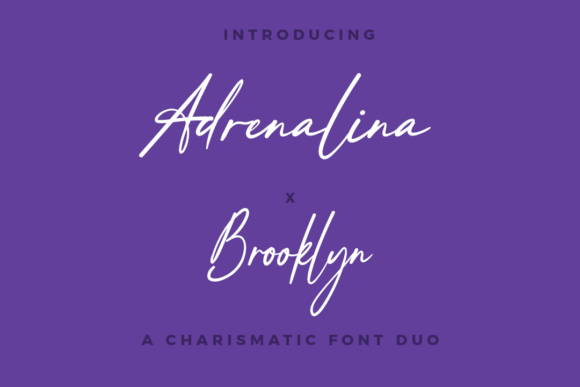
Discover the Elegance and Creativity of Adrenalina X Brooklyn Font
Are you tired of using the same old fonts in your designs? Look no further! Adrenalina and Brooklyn, a charming pair of handwritten cursive fonts, are here to revolutionize the way you approach typography. Designed with a dedication to aesthetics, these fonts offer a beautifully fluid and organic style that will elevate your designs to new heights.
The Beauty of Adrenalina
Adrenalina is a spirited font that embodies vivacity and excitement. Its curvaceous lines and fluid strokes are meticulously crafted to convey a sense of energy and dynamism. This font is perfect for designers who want to add a touch of playfulness and enthusiasm to their work. Whether you’re designing a logo, a poster, or a website, Adrenalina is sure to make a statement.
The Charm of Brooklyn
Brooklyn, on the other hand, brings a mellow and lovable touch to the table. This font is designed to evoke a sense of warmth and friendliness, making it perfect for projects that require a more approachable and down-to-earth feel. Brooklyn’s smooth curves and gentle strokes create a soothing visual experience that will leave your audience feeling calm and relaxed.
A Match Made in Heaven
When paired together, Adrenalina and Brooklyn create a stunning visual contrast that will add depth and interest to your designs. The spirited curvatures of Adrenalina complement the mellow charm of Brooklyn, creating a beautiful harmony that will captivate your audience. Whether you’re designing a brand identity, a website, or a marketing campaign, this font pairing is sure to impress.
Design Possibilities
So, what can you do with Adrenalina and Brooklyn? The possibilities are endless! Here are a few ideas to get you started:
- Logos and branding: Use Adrenalina to create a bold and eye-catching logo, and pair it with Brooklyn for a more subtle and sophisticated brand identity.
- Posters and flyers: Add a touch of excitement and energy to your posters and flyers with Adrenalina, or create a more laid-back and casual vibe with Brooklyn.
- Web design: Use Adrenalina to create a bold and dynamic website header, and pair it with Brooklyn for a more elegant and refined body font.
- Social media graphics: Add a touch of personality and whimsy to your social media graphics with Adrenalina, or create a more professional and polished look with Brooklyn.
Why Choose Adrenalina X Brooklyn?
So, why should you choose Adrenalina and Brooklyn for your design projects? Here are just a few reasons:
- Unique and creative: These fonts offer a fresh and unique perspective on handwritten cursive typography, allowing you to stand out from the crowd and create something truly original.
- Highly versatile: Adrenalina and Brooklyn can be used for a wide range of design projects, from logos and branding to web design and social media graphics.
- Easy to read: Despite their creative and artistic nature, these fonts are highly legible and easy to read, making them perfect for body text and other applications where readability is key.
In conclusion, Adrenalina and Brooklyn are a charming pair of handwritten cursive fonts that are sure to transform your designs with their enchanting charm and allure. Whether you’re a designer, a crafter, or simply someone who appreciates the beauty of typography, these fonts are a must-have in your toolkit. So why wait? Discover the elegance and creativity of Adrenalina X Brooklyn Font today, and get ready to take your designs to new heights!